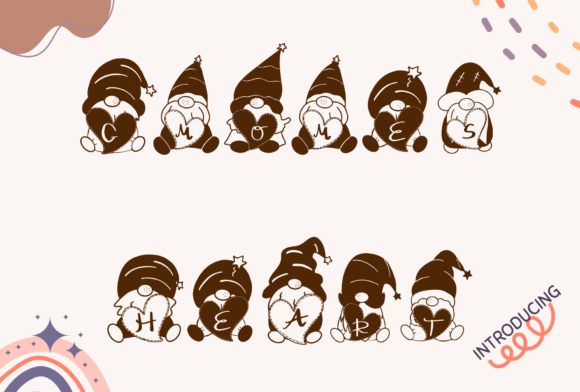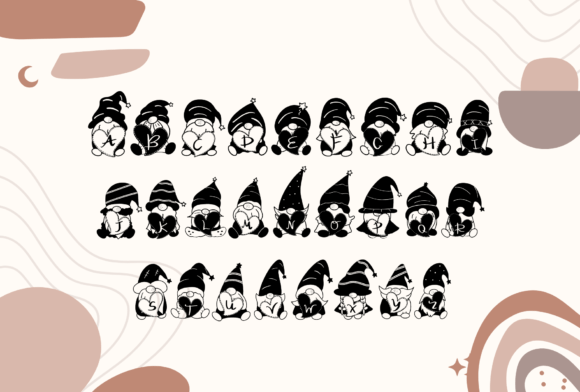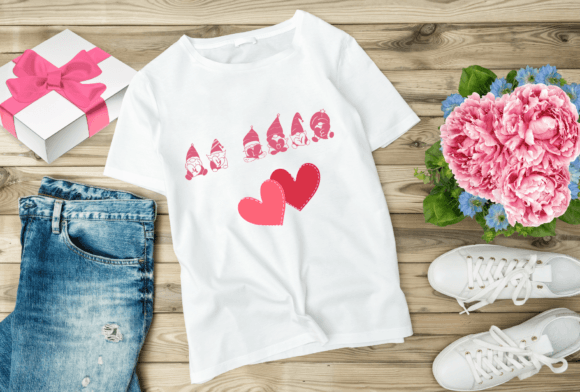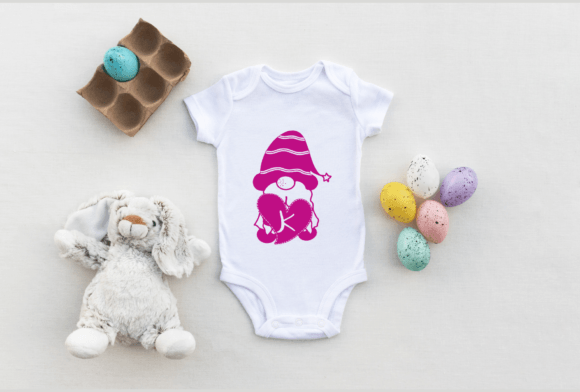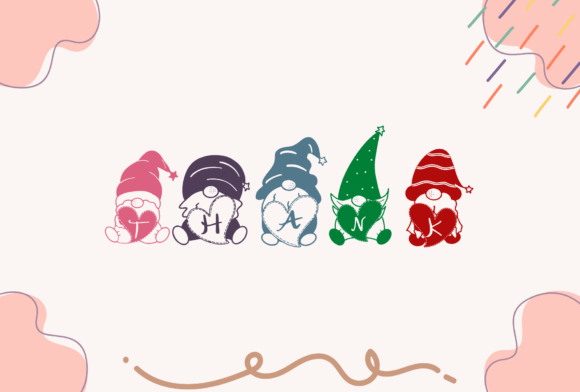
Gnomes Heart Font: The Perfect Addition to Your Educational and Creative Projects
Are you a designer, teacher, or crafter looking for a unique and adorable font to add a personal touch to your projects? Look no further than Gnomes Heart Font! This super cute decorative font boasts a simple style that’s perfect for educational materials, advertising, and a wide range of creative design ideas.
What is Gnomes Heart Font?
Gnomes Heart Font is a charming and whimsical typeface that’s sure to capture the hearts of designers, teachers, and crafters alike. Its simple yet playful design makes it an excellent choice for a variety of projects, from educational materials and worksheets to posters, flyers, and social media graphics.
Key Features of Gnomes Heart Font
- Simple yet adorable design: Gnomes Heart Font features a clean and straightforward design that’s easy to read and understand, making it perfect for educational materials and projects where clarity is essential.
- Highly versatile: This font can be used for a wide range of projects, including teaching materials, advertising, crafts, and more.
- Cute and playful: The font’s adorable design is sure to add a touch of personality and whimsy to your projects.
Uses for Gnomes Heart Font
Gnomes Heart Font is an incredibly versatile typeface that can be used for a wide range of projects, including:
- Educational materials: Use Gnomes Heart Font to create engaging and interactive worksheets, posters, and teaching aids that will capture your students’ attention.
- Advertising and marketing: Add a touch of personality to your advertising and marketing materials, such as flyers, brochures, and social media graphics.
- Crafts and DIY projects: Use Gnomes Heart Font to add a personal touch to your craft and DIY projects, such as handmade cards, gift tags, and scrapbooking pages.
- Social media graphics: Create eye-catching social media graphics, such as Facebook posts, Instagram stories, and Pinterest pins, using Gnomes Heart Font.
Tips for Using Gnomes Heart Font
Here are some tips for getting the most out of Gnomes Heart Font:
- Experiment with different colors and textures: Add depth and interest to your designs by experimenting with different colors and textures.
- Pair with other fonts: Combine Gnomes Heart Font with other fonts to create visually appealing and engaging designs.
- Use for headings and titles: Use Gnomes Heart Font for headings and titles to add a touch of personality and whimsy to your designs.
Gnomes Heart Font is a charming and versatile typeface that’s perfect for designers, teachers, and crafters looking to add a personal touch to their projects. With its simple yet adorable design, high versatility, and ease of use, Gnomes Heart Font is an excellent choice for a wide range of creative projects. So why not give it a try and see how it can enhance your designs?